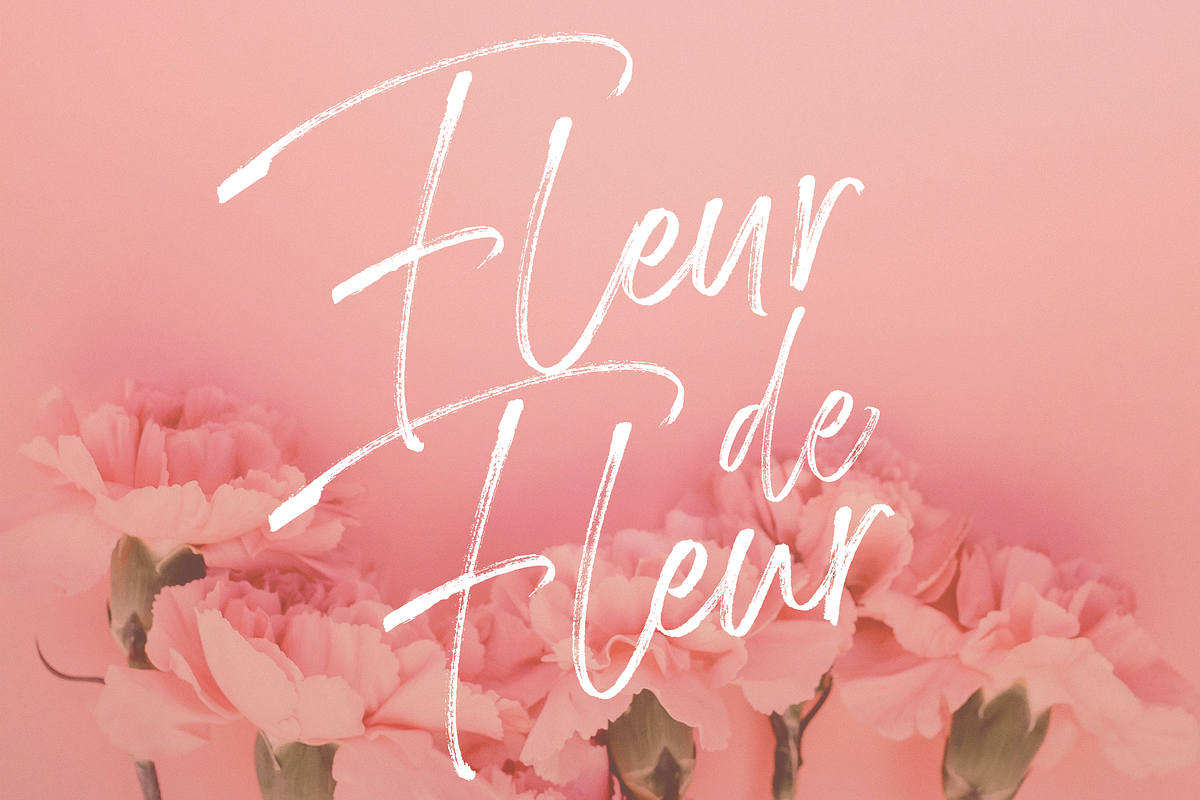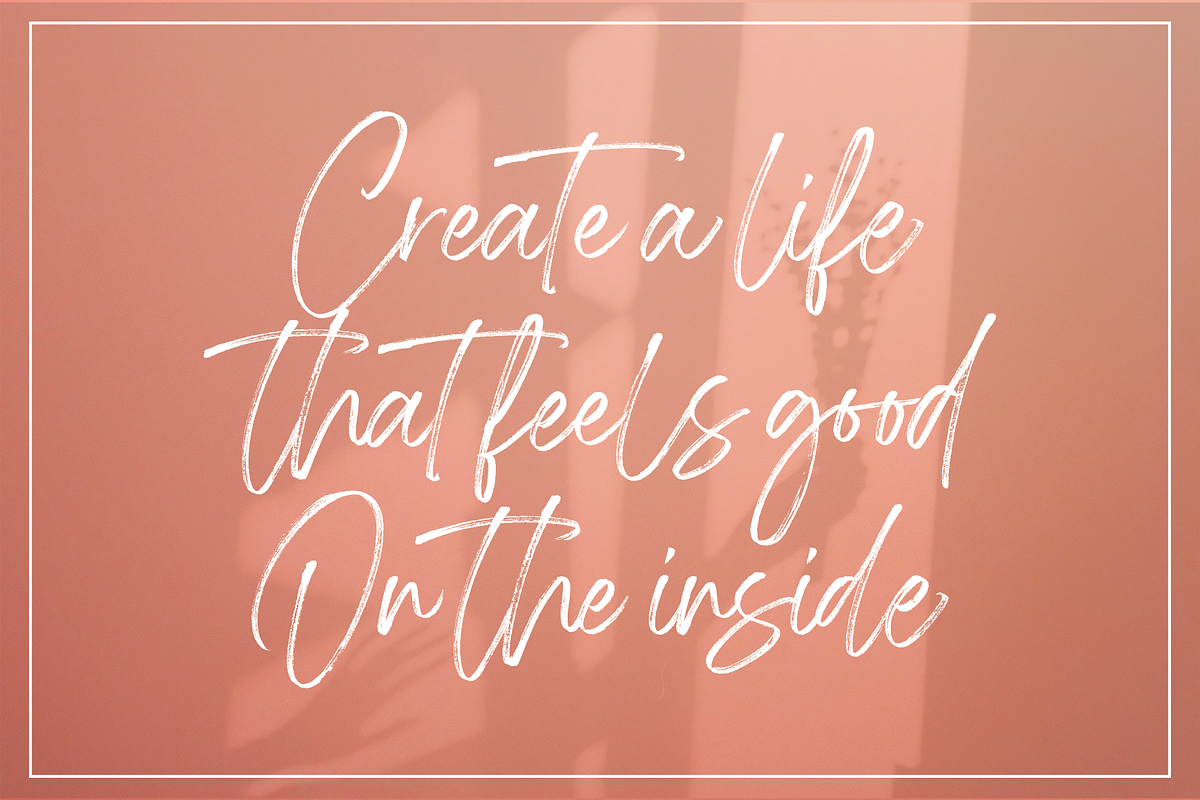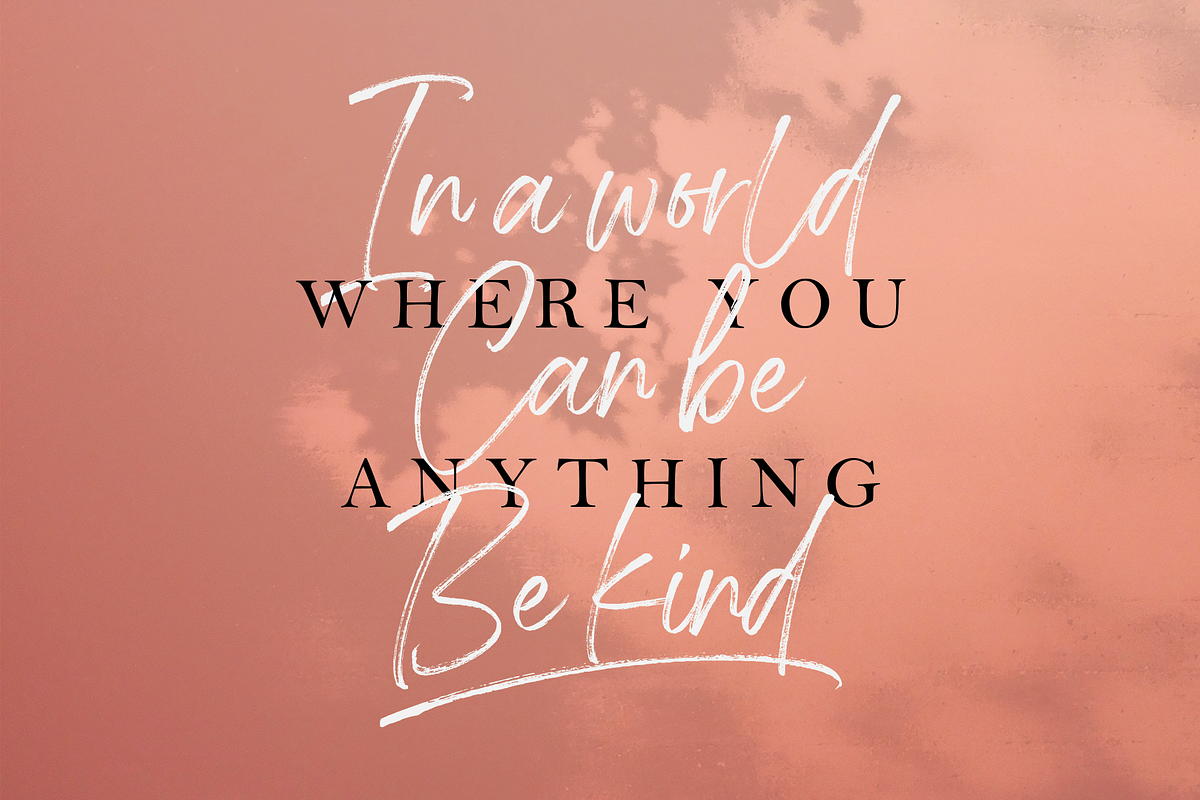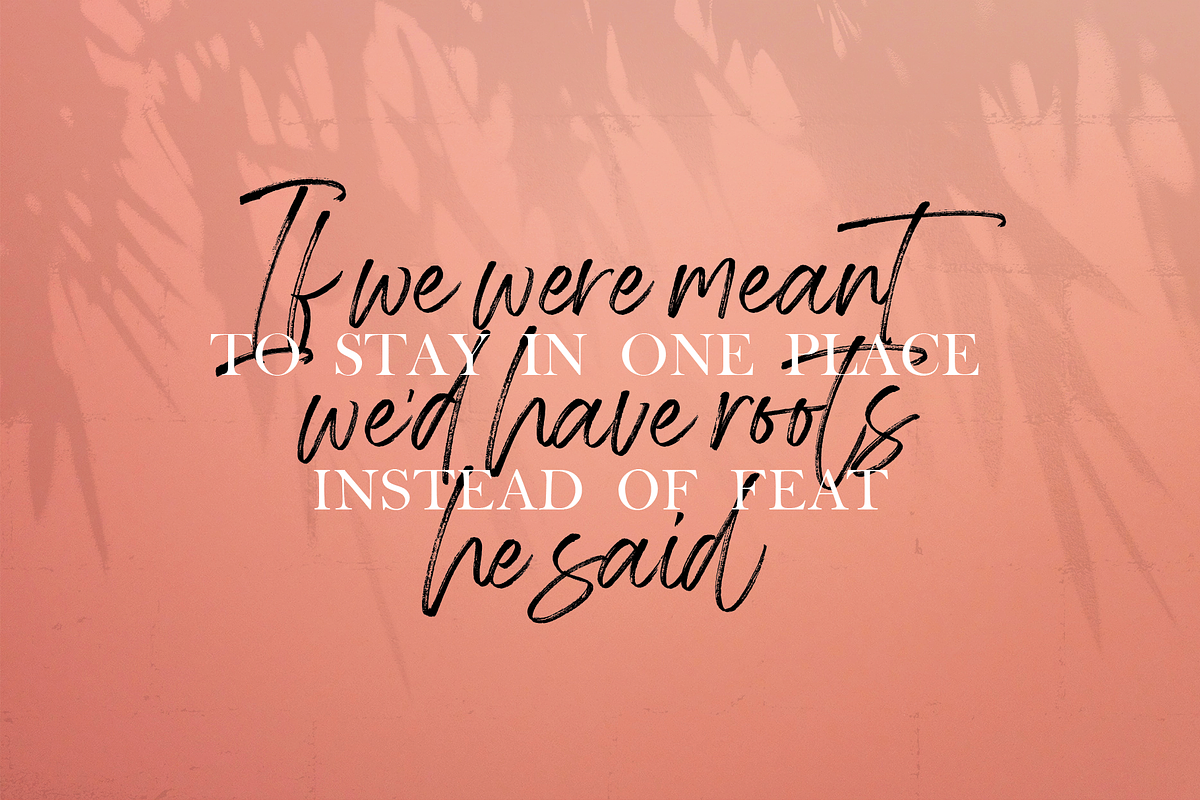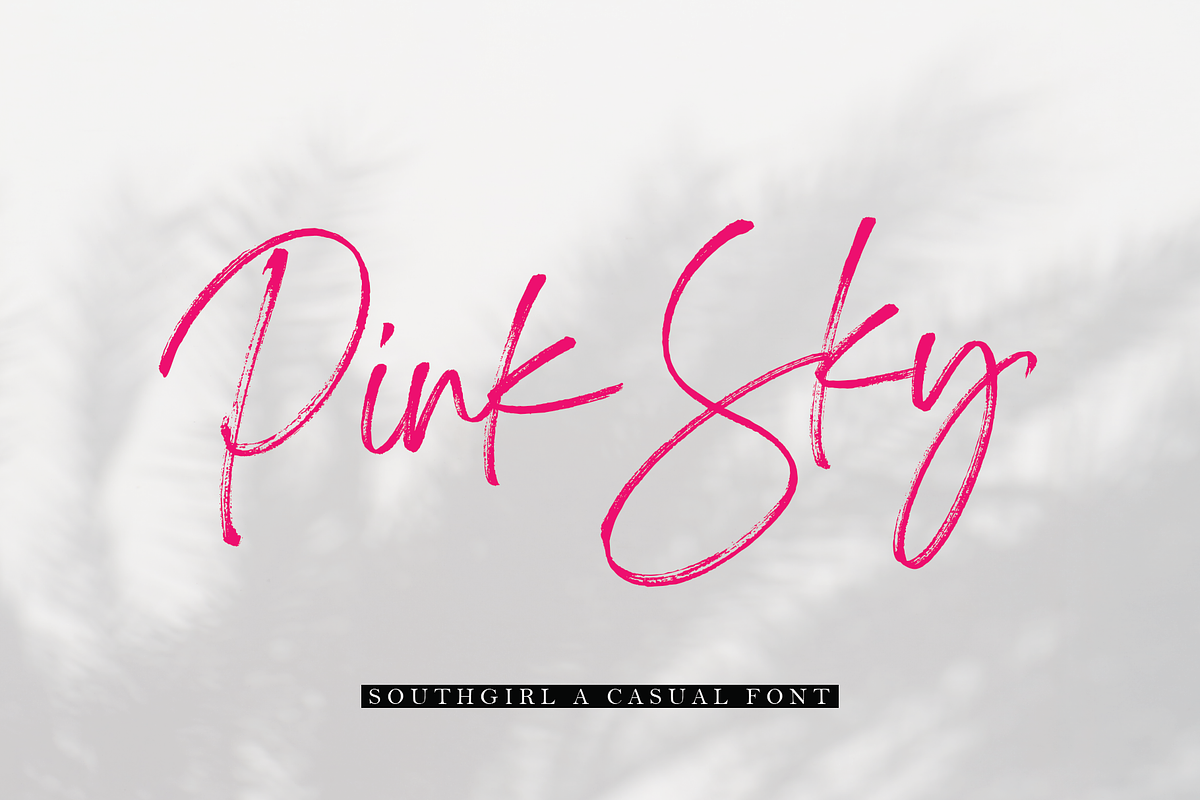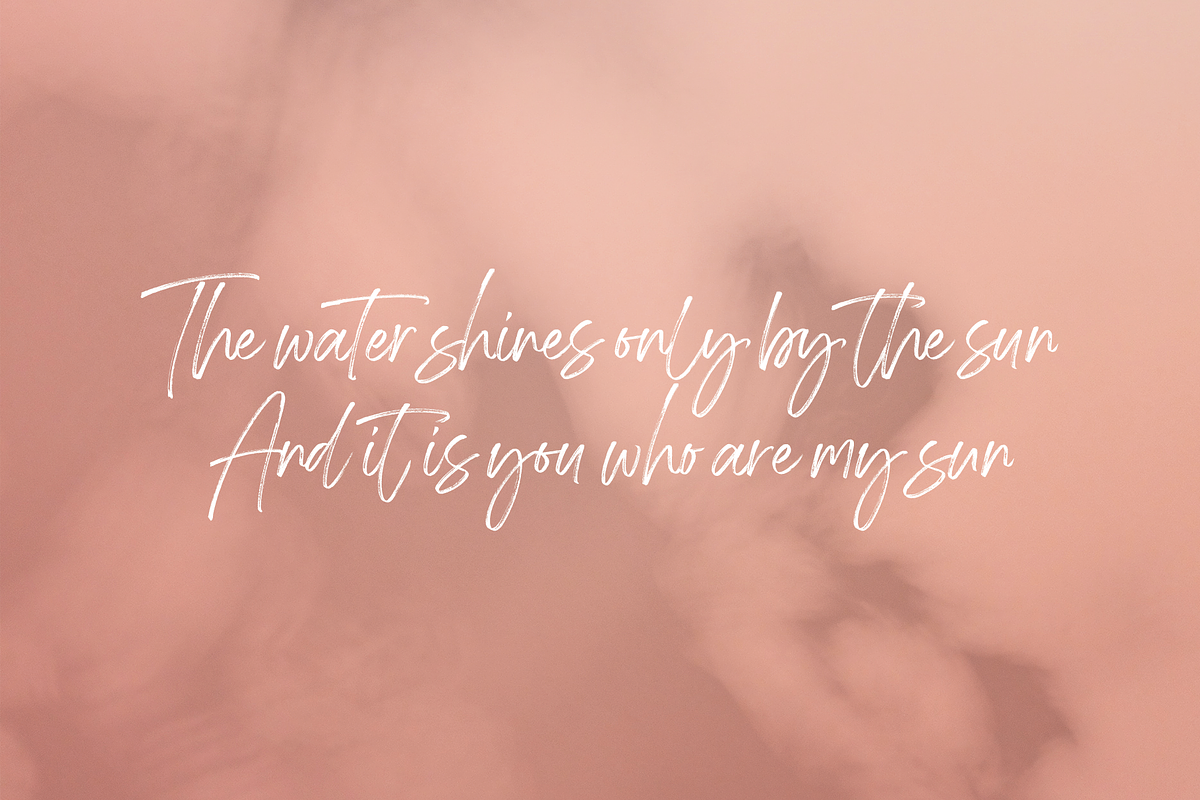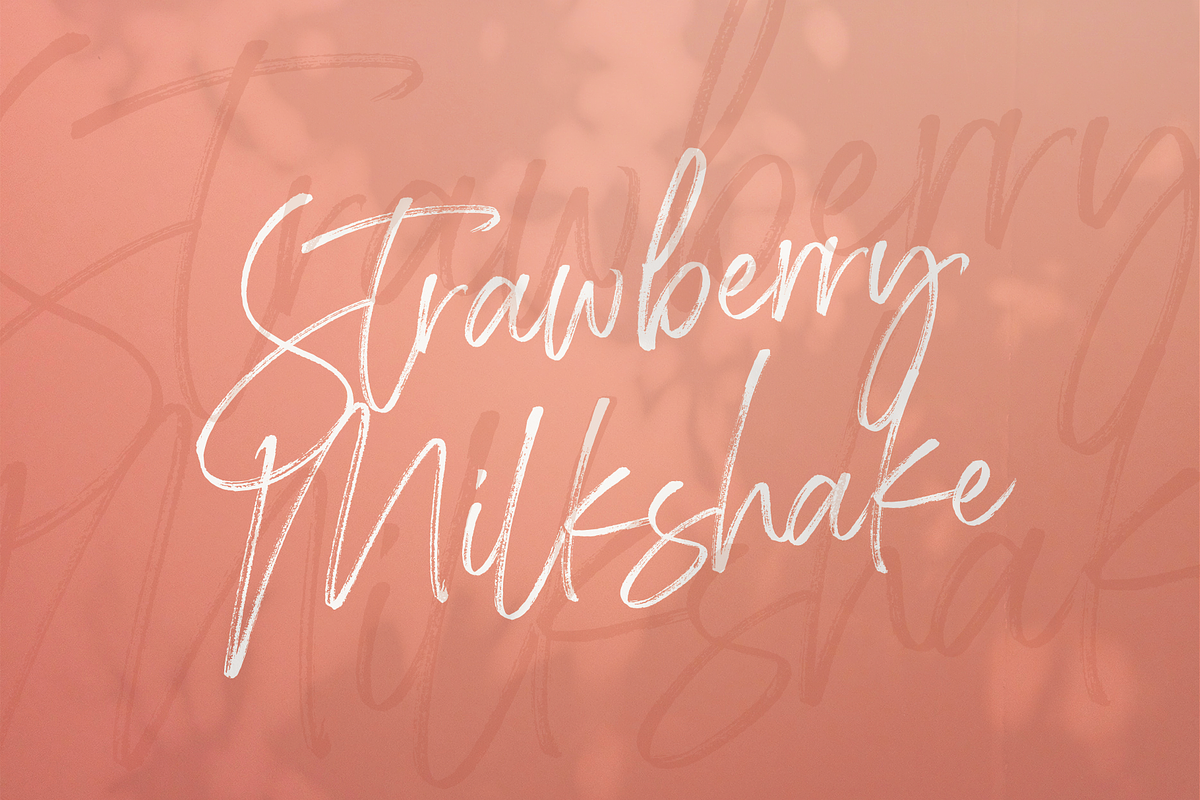
Southgirl Handwritten Font
introducing new fonts Southgirl Handwritten Font are Hanwritten fonts with pentel-style brushpen textures that you can use to enhance your work.
Southgirl Handwritten Font is available in 3 different types of lowercase letters, you can change it as you wish to create a unique style when several characters of the same letter meet. and this will be an advantage to make your writing really like handwriting.
Southgirl handwritten font you can use for various projects such as stationery invitations, social media, logos, weddings, branding, graphic designs with the addition of a few ligature and swash. and can be combined with various types of serif fonts to perfect the project you want to work on
Why Southgirl Handwritten Font is worth a look
Southgirl Handwritten Font by Megi Satyo Widodo fits naturally into Branding, posters, packaging, typography.